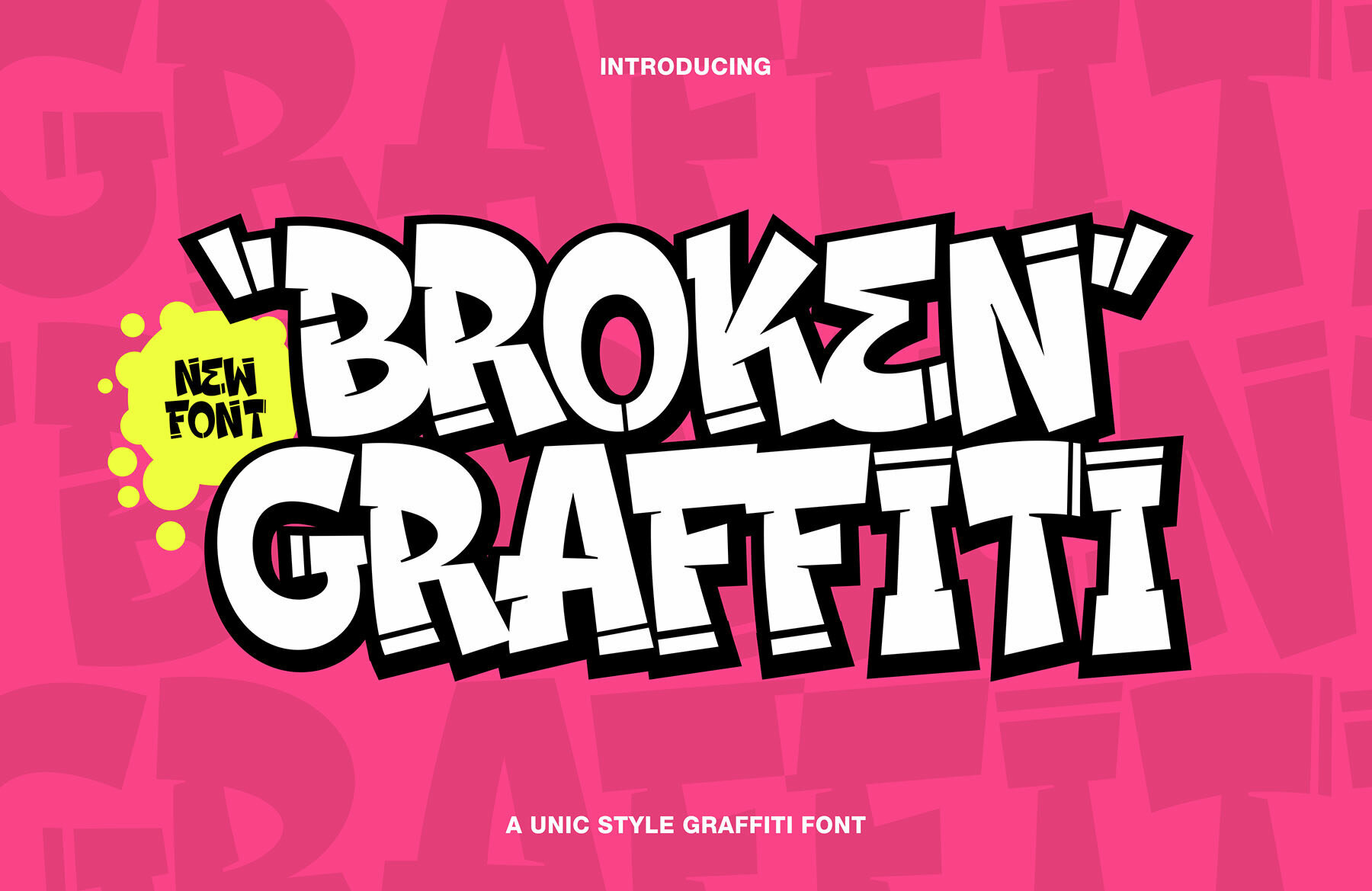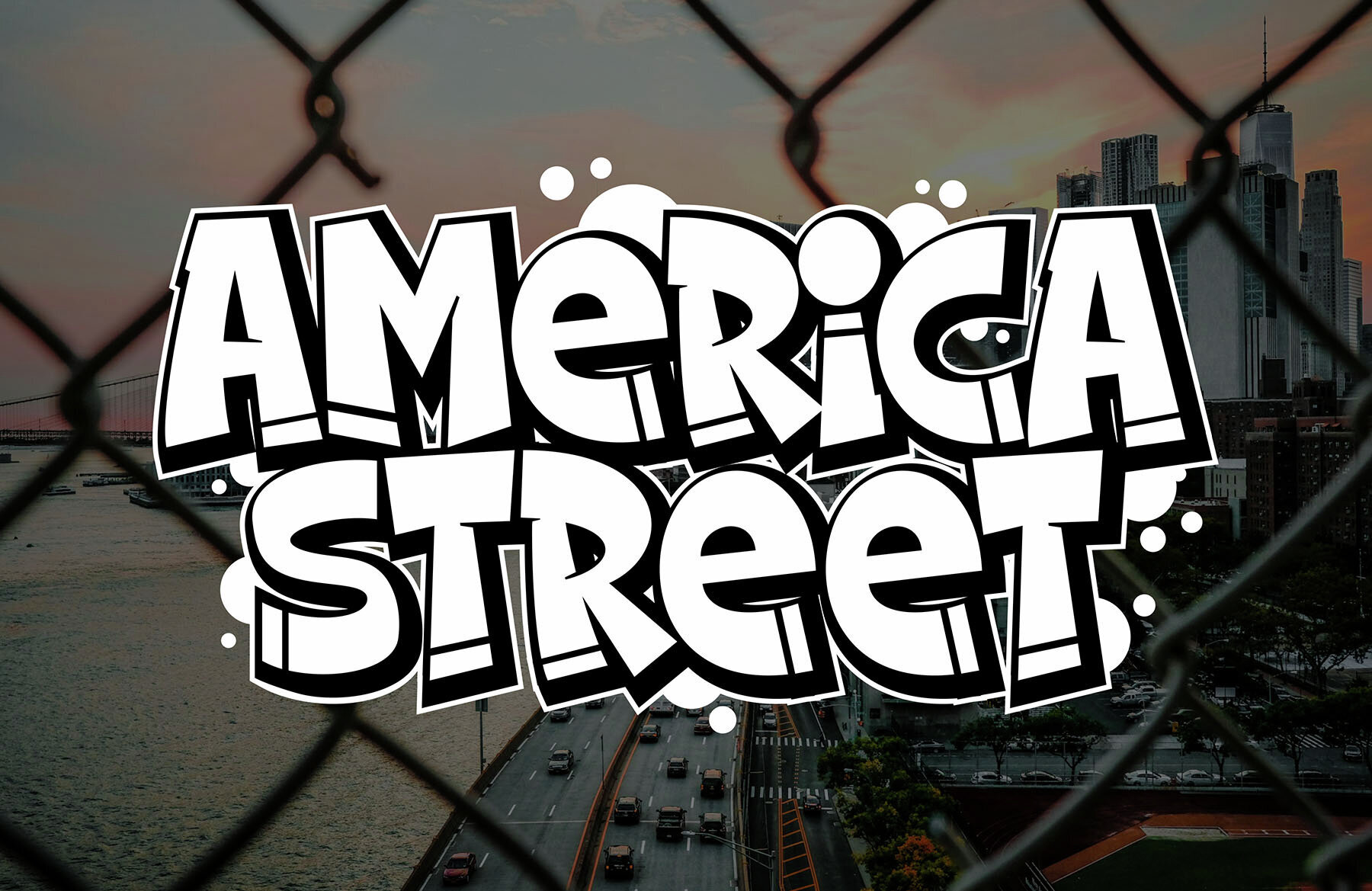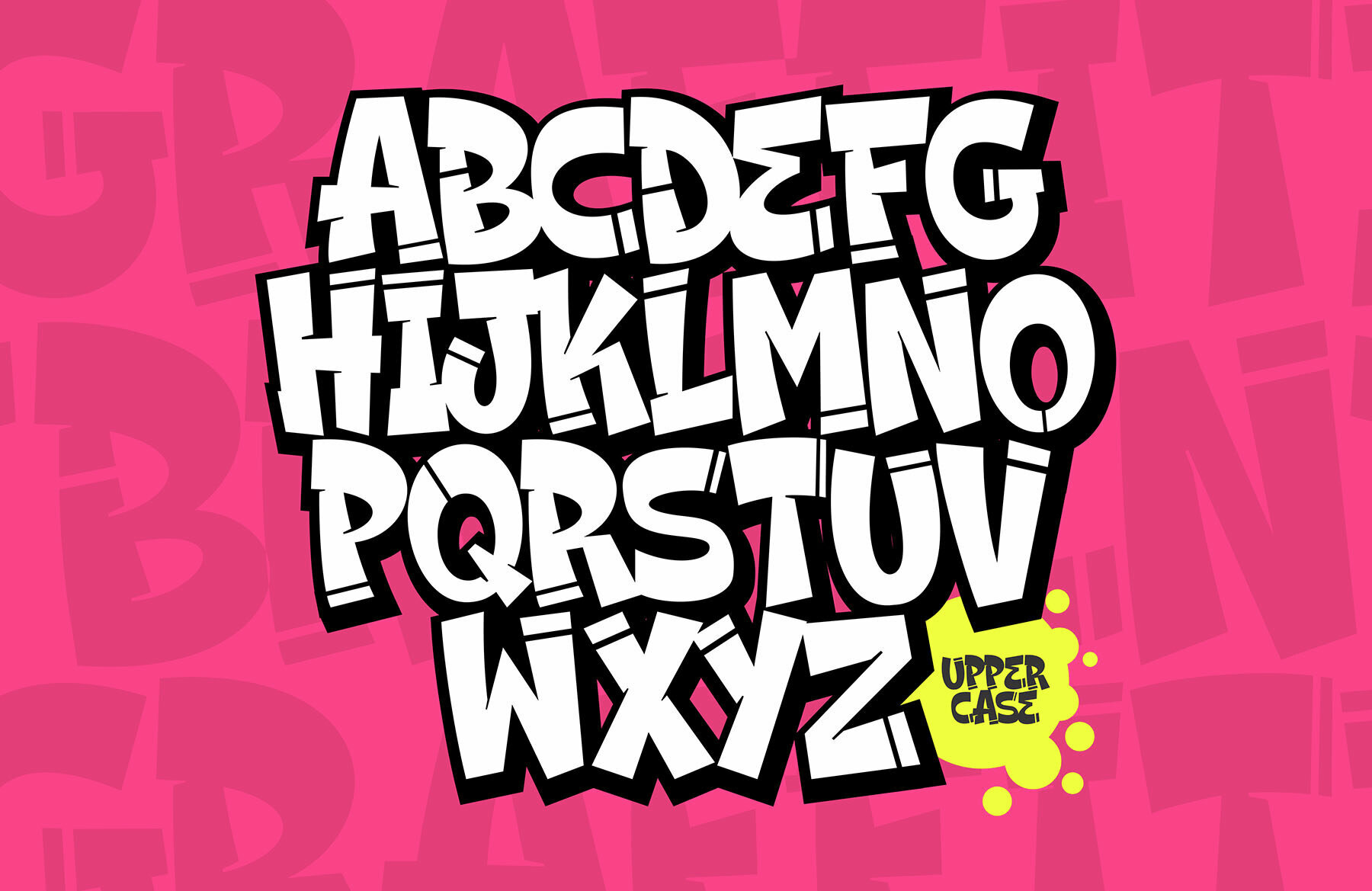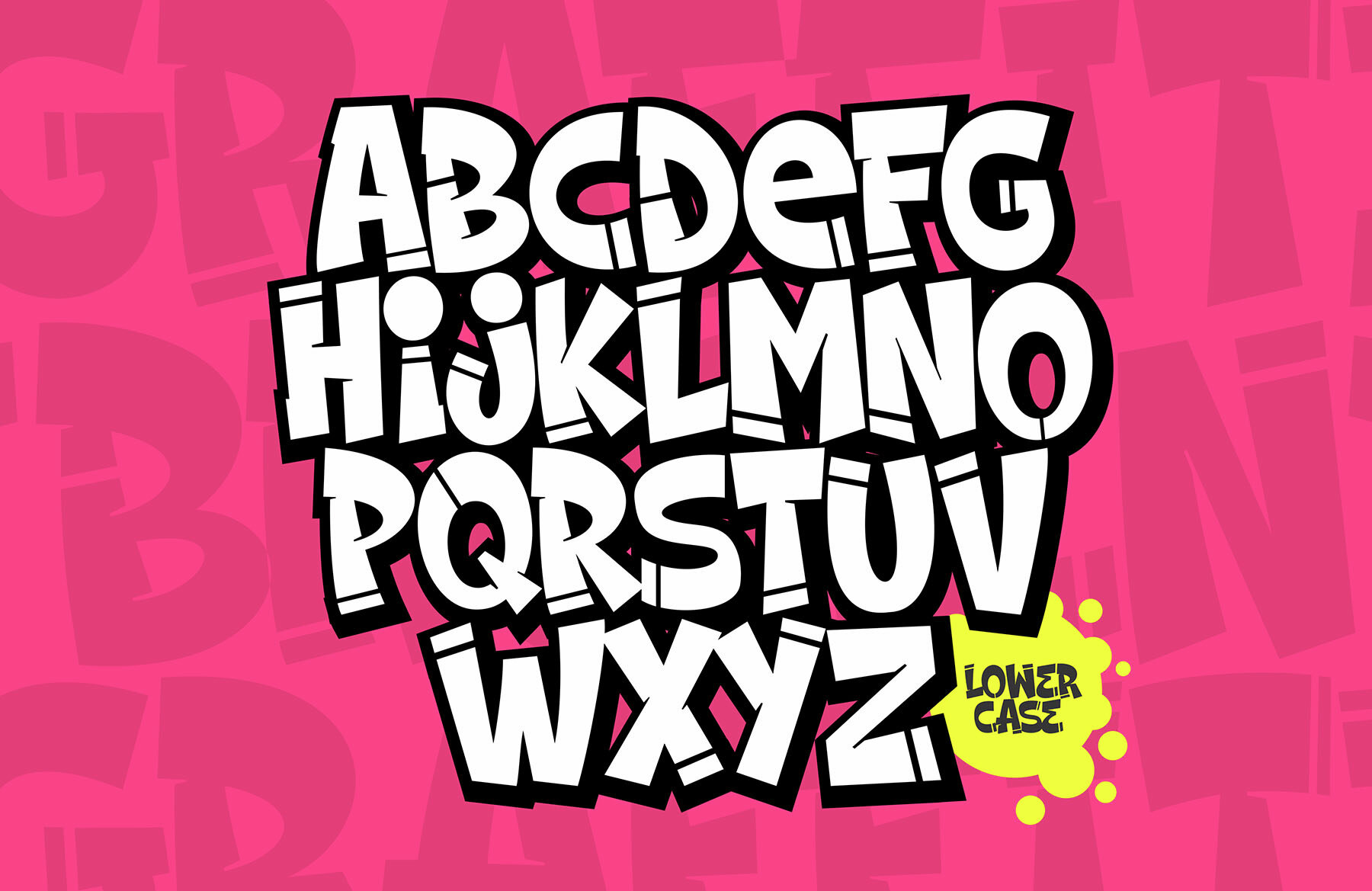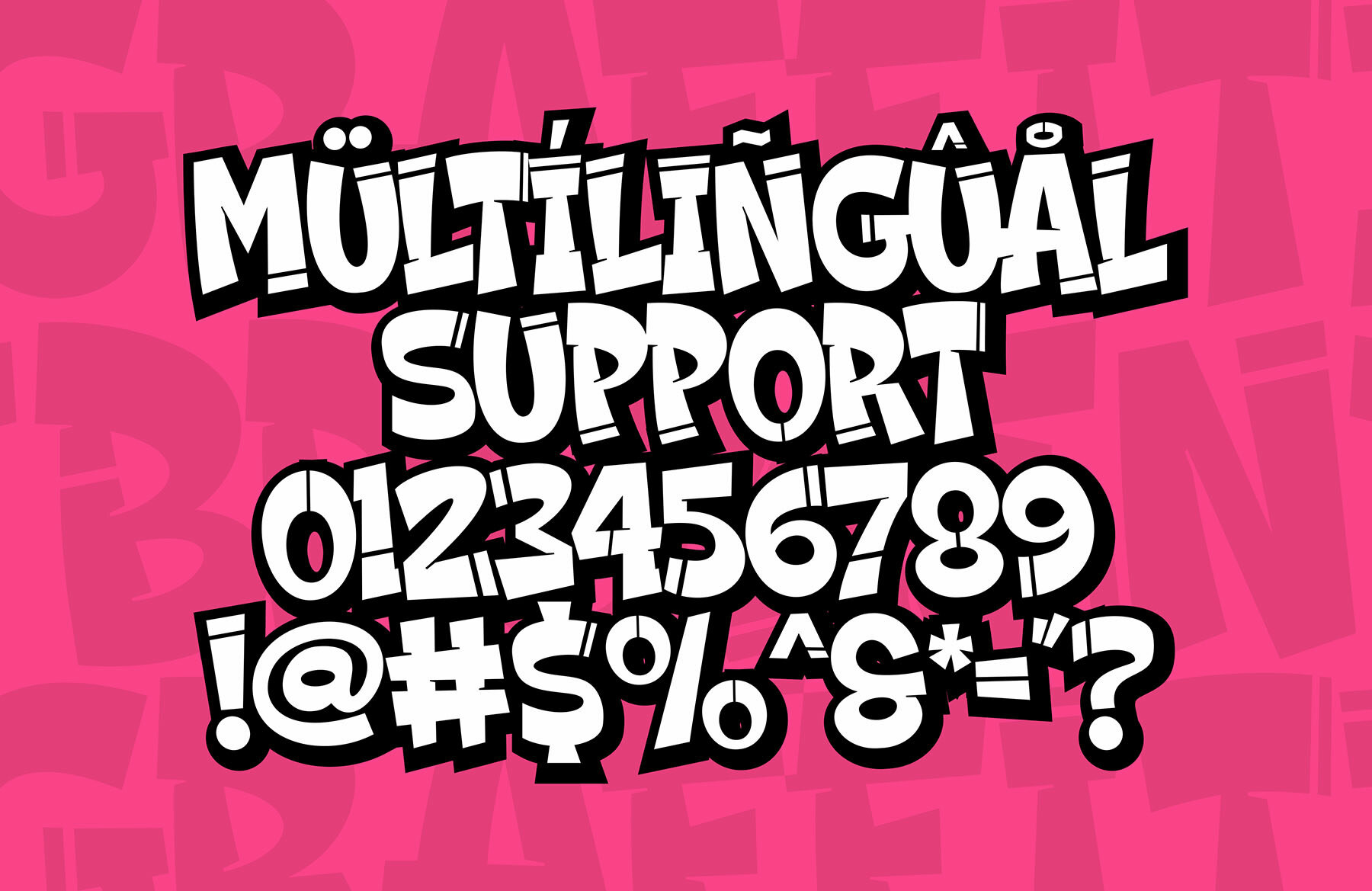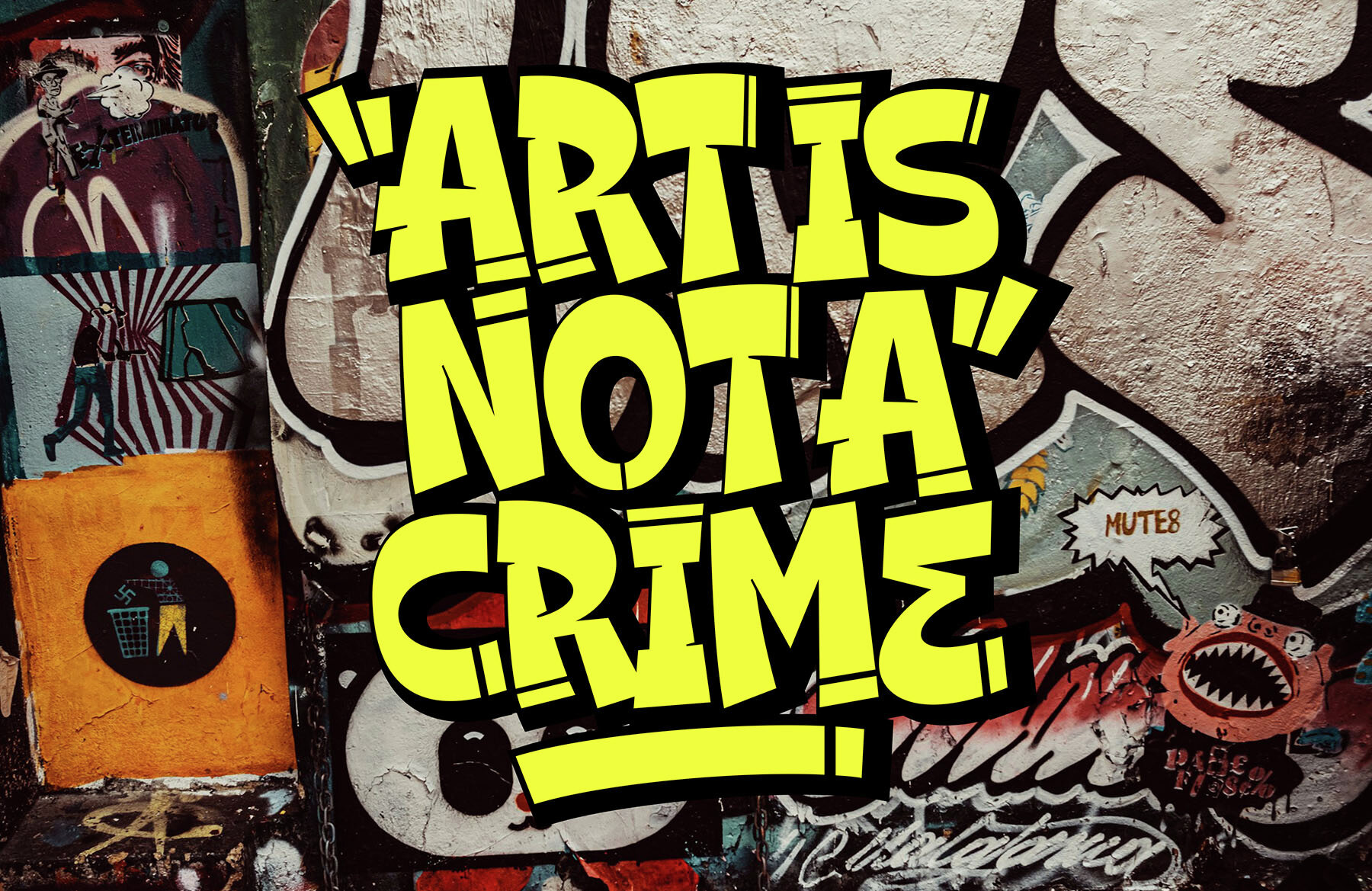
Broken Graffiti Font
Discover the unconventional flair of Broken Graffiti, a fresh offering from Rvq Type Foundry. This unique graffiti-style font features simple yet impactful lettering, ideal for a range of creative applications. From clothing designs to social media visuals, posters, banners, and logos, Broken Graffiti adds an edgy, artistic vibe that can elevate any project. Its versatility ensures it meets the demands of diverse creative endeavors. Broken Graffiti stands out with its powerful simplicity, making it an excellent choice for innovative design projects. It offers both style and functionality, enhancing the visual appeal of your work with a bold graffiti aesthetic.Broken Graffiti: A Distinctive Touch for Design